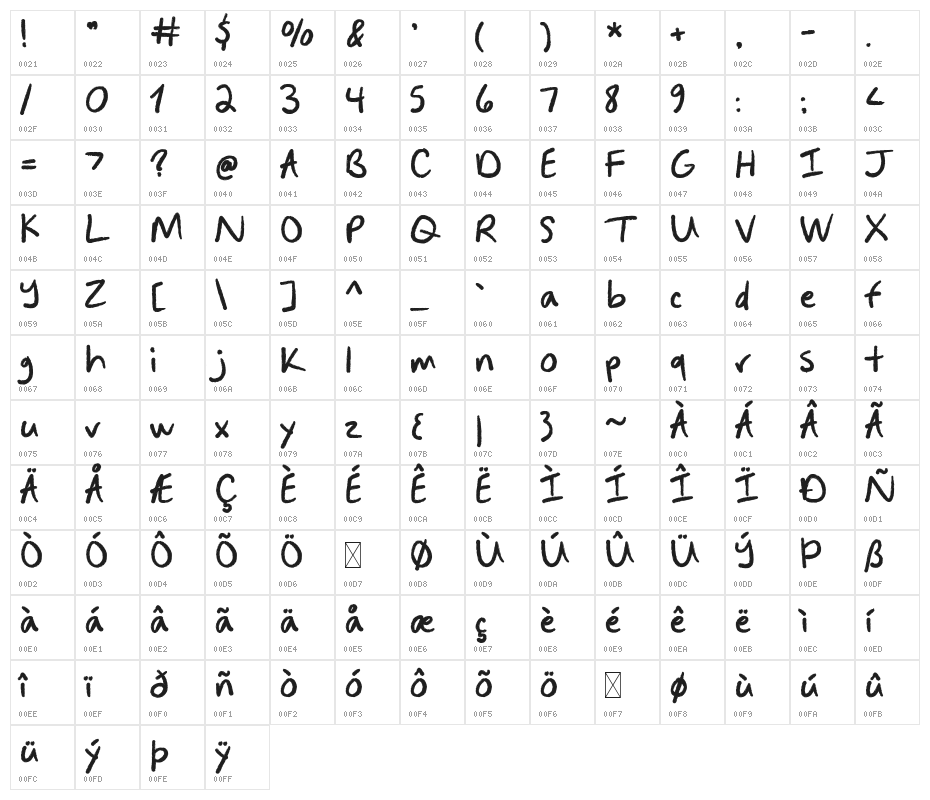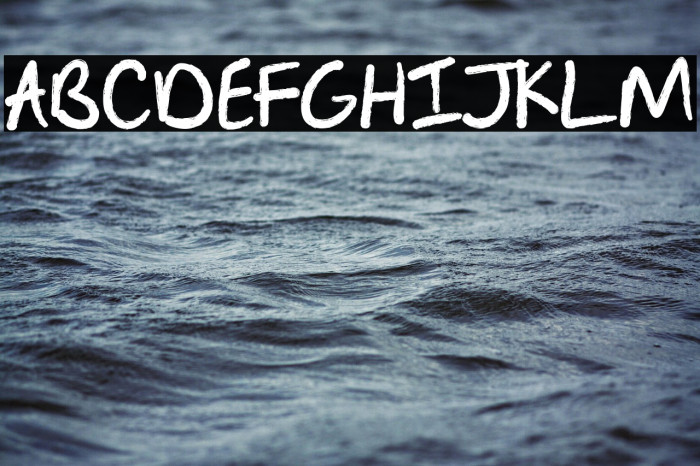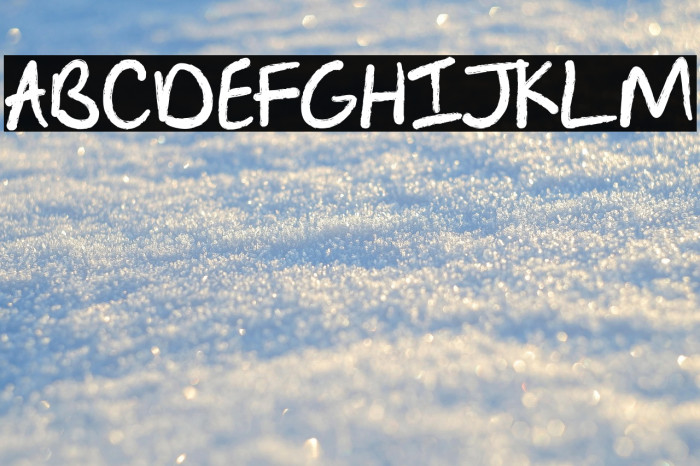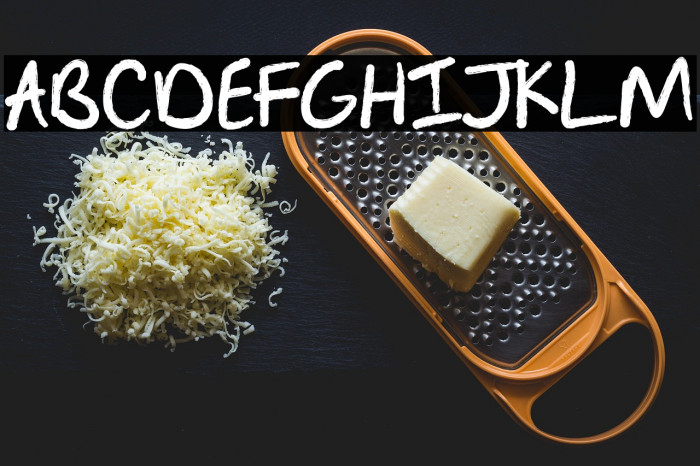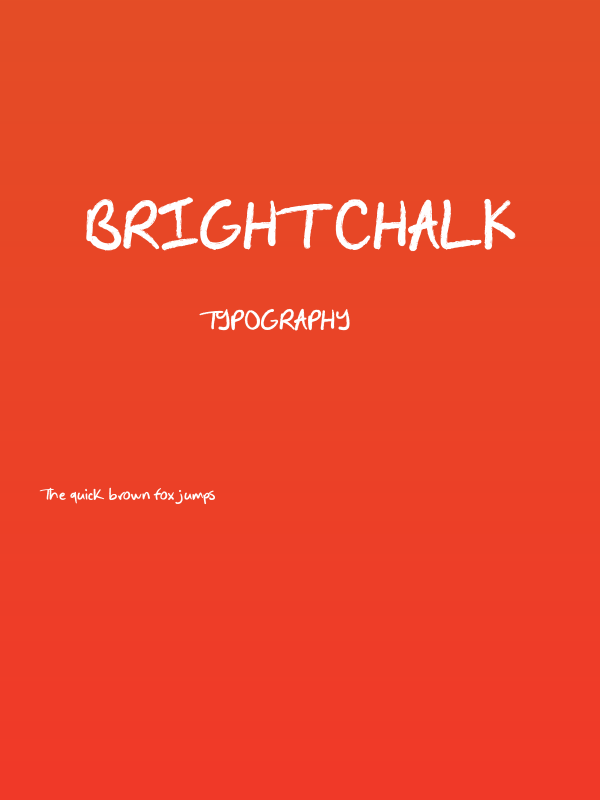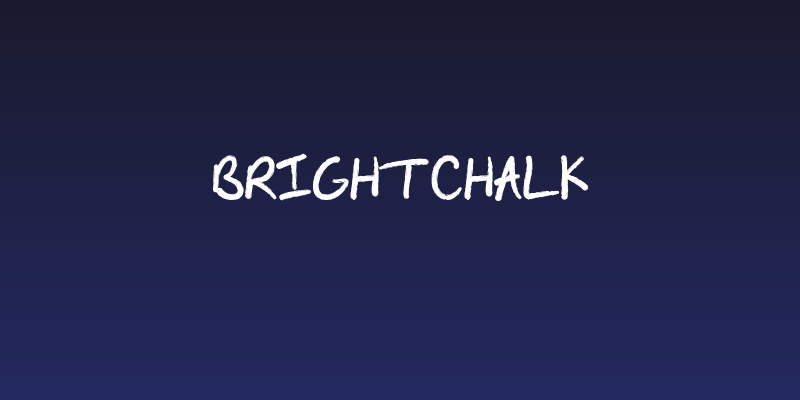
Bright Chalk Font
Bright Chalk Description
This font exudes a playful and informal style, reminiscent of chalk writing on a blackboard. The characters are bold and slightly irregular, giving them a hand-drawn appearance. The strokes are thick and consistent, with a slightly rough texture that adds to the casual, approachable feel. The uppercase and lowercase letters are well-proportioned, maintaining readability while conveying a sense of creativity and spontaneity. The numbers and special characters follow the same design ethos, ensuring a cohesive look across all text elements.
| Overall Style | Casual |
| Use Case | Headlines, Informal text, Creative projects |
| Proposed Projects | Ideal for educational materials, children's books, playful branding, and casual event invitations. |